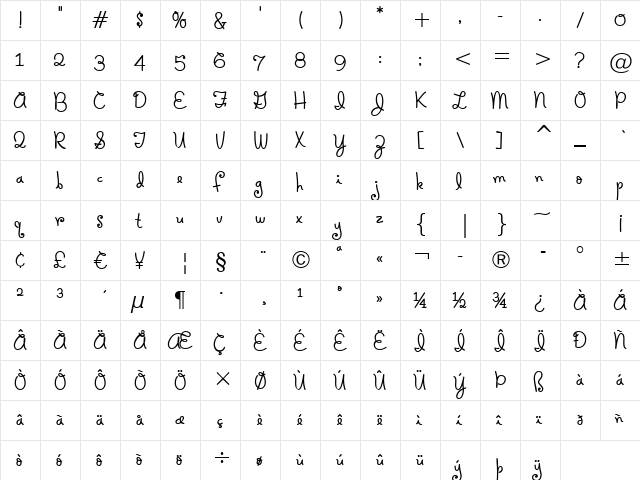
Holiday Springs BTN Regular
Design Context for Holiday Springs BTN Typeface
Holiday Springs BTN is a composed and adaptable typeface that performs quietly and consistently across a wide range of design contexts.